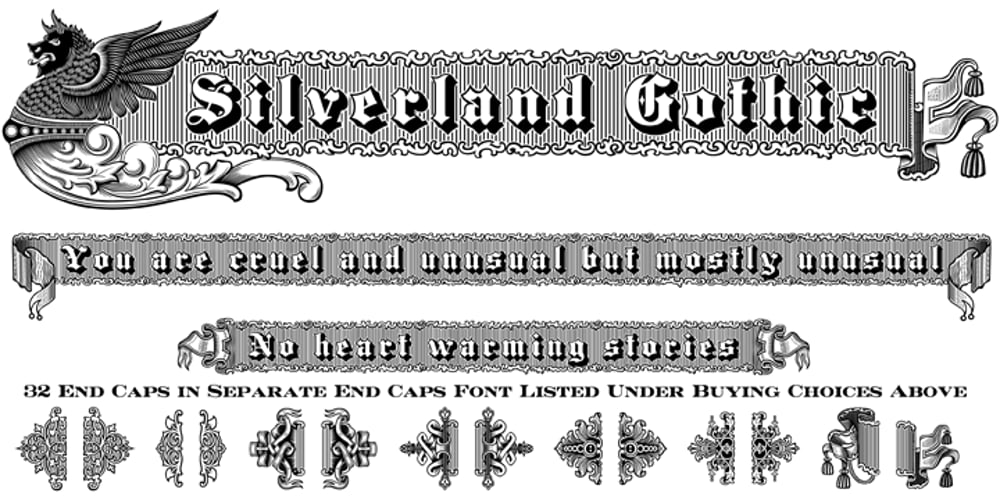
Silverland Gothic Font Family was designed by Michael Hagemann and published by FontMesa. Silverland Gothic contains 1 styles and family package options. Silverland is a revival of an old type font from the Bruce Type Foundry of New York, the original font from 1874 included uppercase only plus 22 end caps. This 21st. century version has been expanded to include many more decorative end caps plus new lowercase, small caps, italic, italic small caps, swash, swash small caps and gothic version. Approximately six months of painstaking work has gone into making this font family over the last twenty two months. The OpenType versions of Silverland include between 230 and 370 kerning pairs each setup as auto ligature replacements, you will need an application such Adobe CS products in order to take advantage of this OpenType feature.